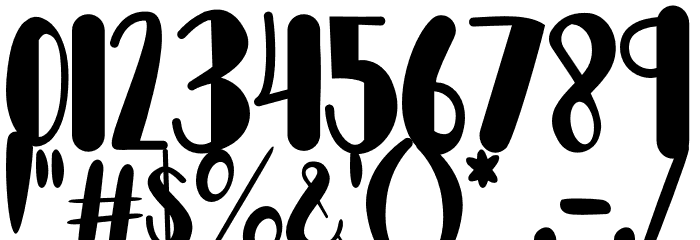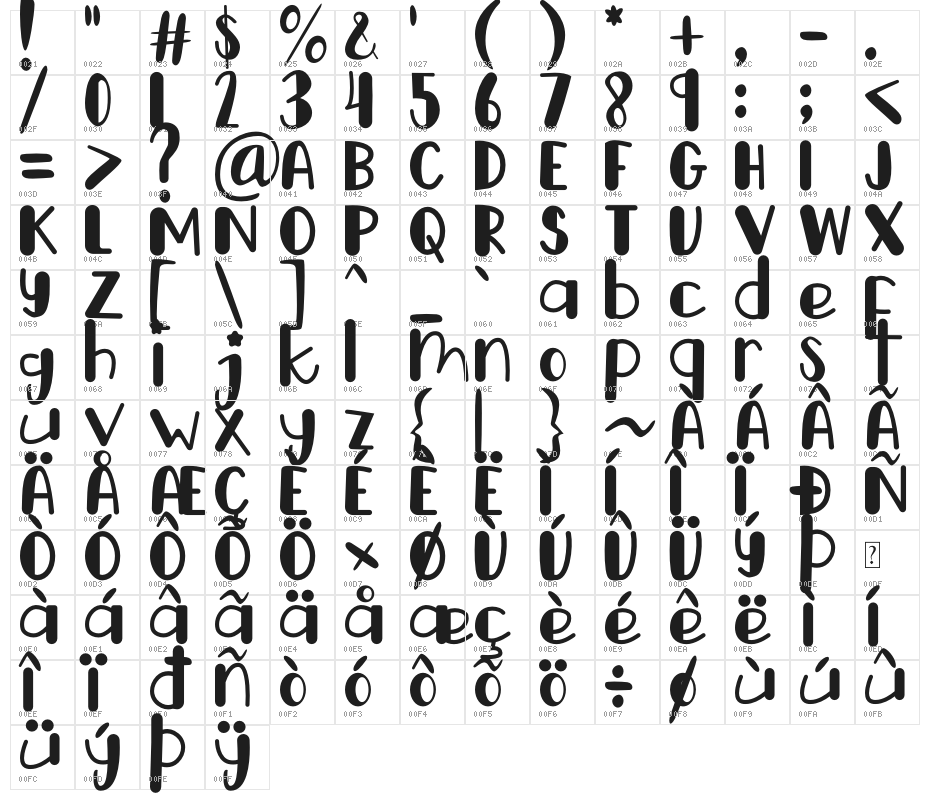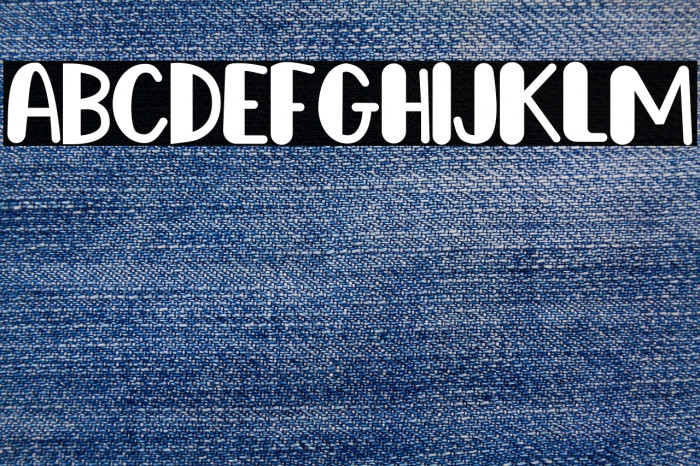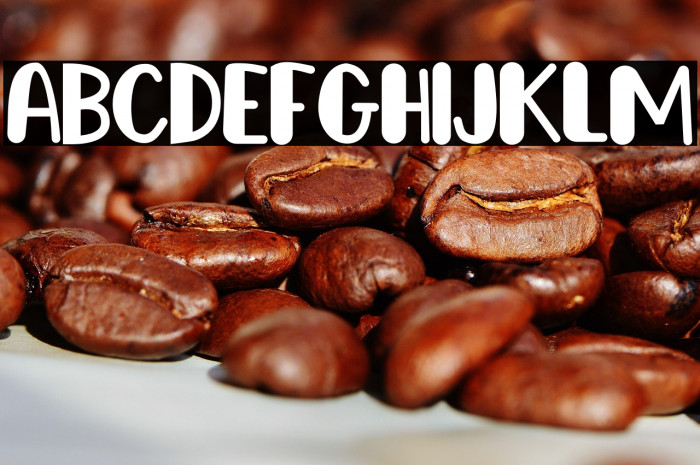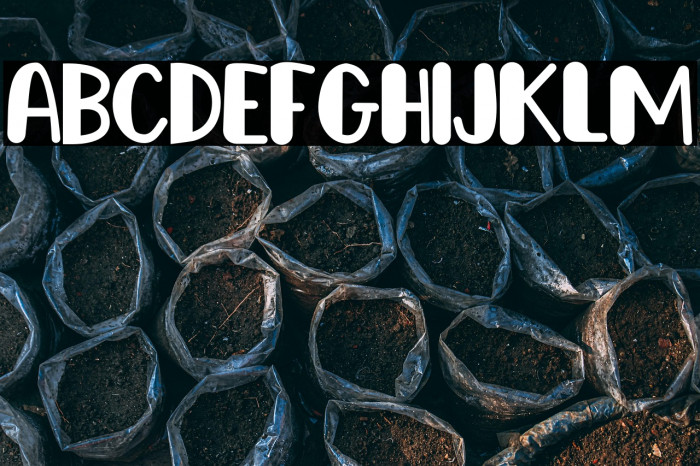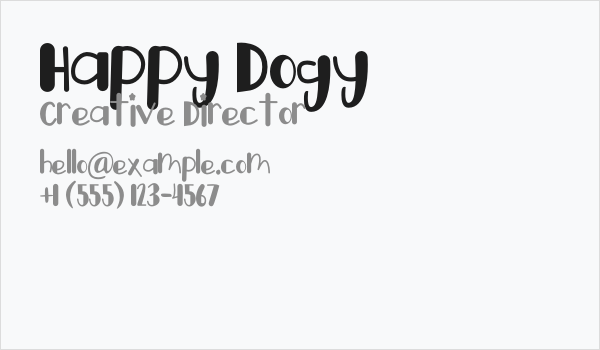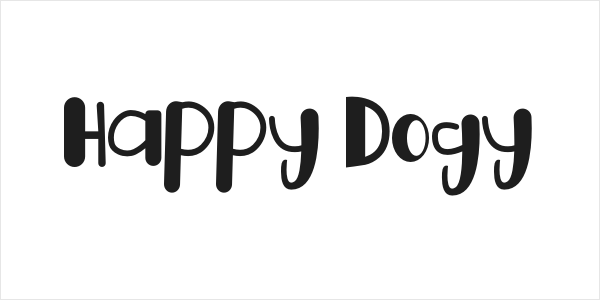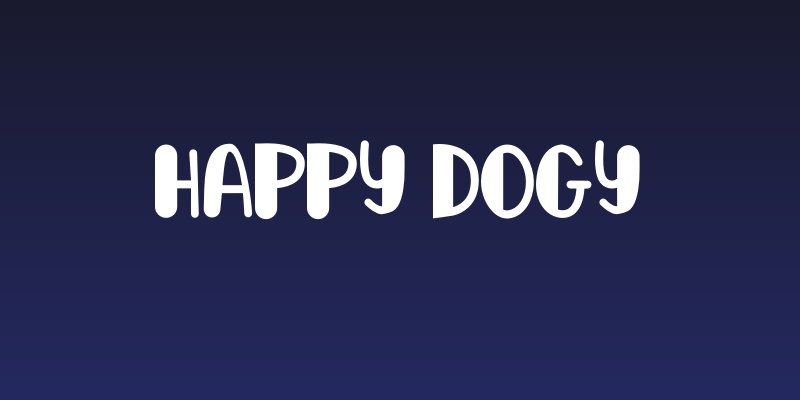
Happy Dogy Font
Happy Dogy Description
This playful and whimsical font features a bold and rounded style with a touch of fun. The uppercase letters are slightly taller and more pronounced, while the lowercase letters maintain a consistent, playful flow. The numbers are bold and rounded, matching the overall style of the letters. Special characters are creatively designed, adding a unique flair to the font. The strokes are thick, providing a strong visual impact, and the overall design is reminiscent of a handwritten style, making it suitable for informal and creative projects.
| Overall Style | Playful |
| Use Case | Logos, Headlines, Posters |
| Proposed Projects | Ideal for children's books, playful branding, greeting cards, and creative posters. |